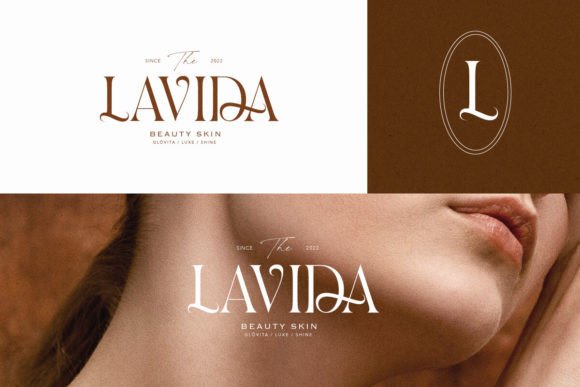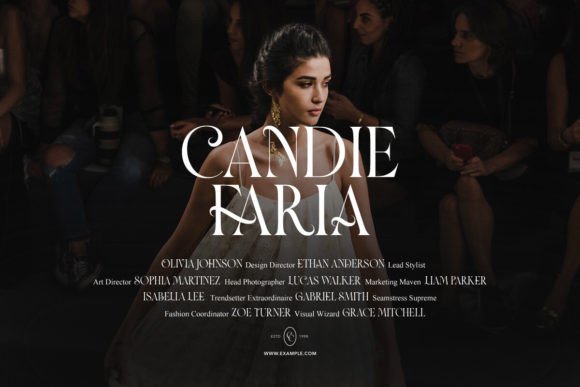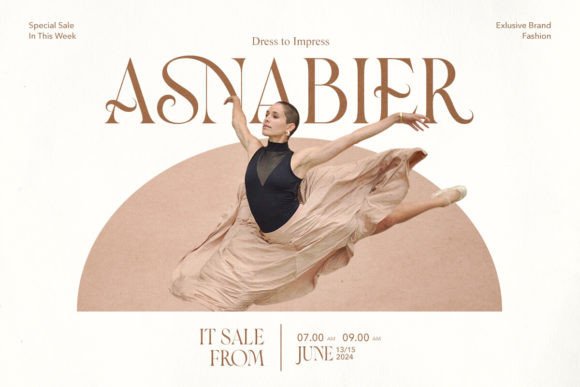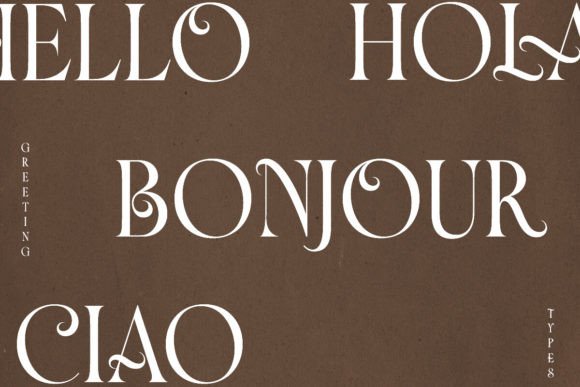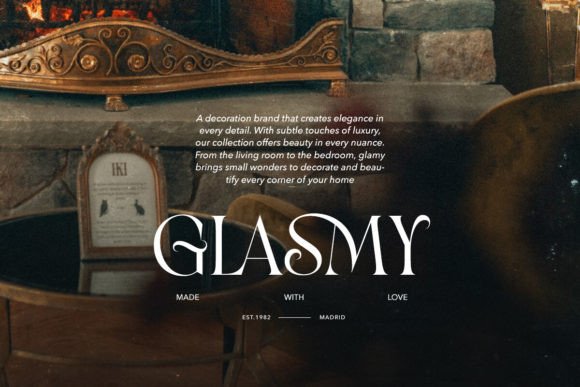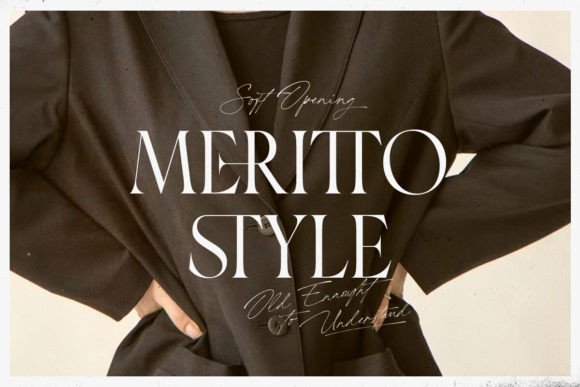
Introduction to Claviers Font
Claviers is a stylish and elegant serif font that embodies sophistication and refinement.
Its graceful curves and balanced proportions make it perfect for luxurious branding, high-end editorial layouts, and sophisticated invitations Elevate your designs with the timeless beauty and class of this exquisite typeface.
Key Features of Claviers Font